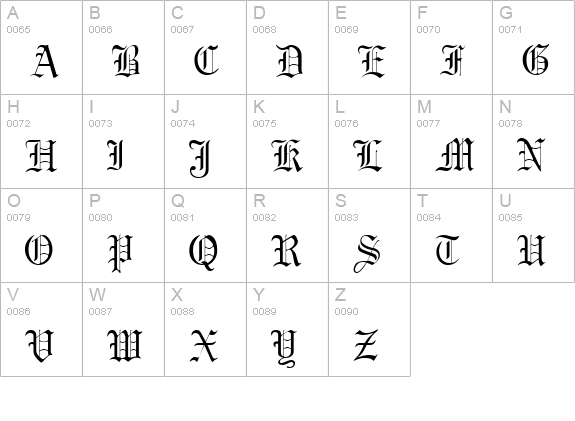
Gargoyle SSi font is a captivating display typeface that exudes a mystical and gothic charm. Designed with intricate details and sharp edges, this font is perfect for adding a touch of dark elegance to your projects. Whether you're working on a spooky Halloween invitation or a mysterious branding project, Gargoyle SSi font will certainly make a statement. What's even better is that Gargoyle SSi font is available for free download at FontsMarket.com. So, you can easily incorporate this unique font into your designs without any added cost. Don't miss out on the opportunity to unleash the power of Gargoyle SSi font in your creative endeavors. Download it now and let your imagination run wild!